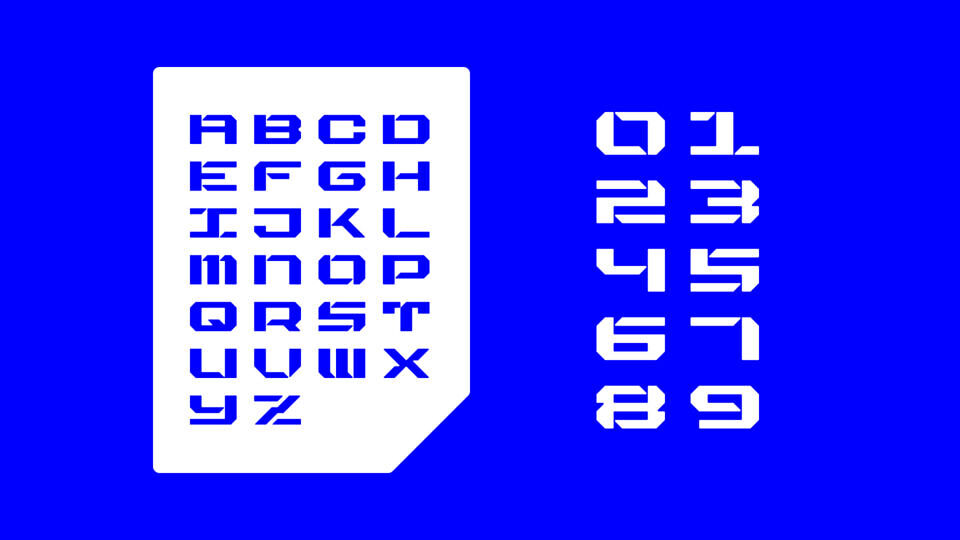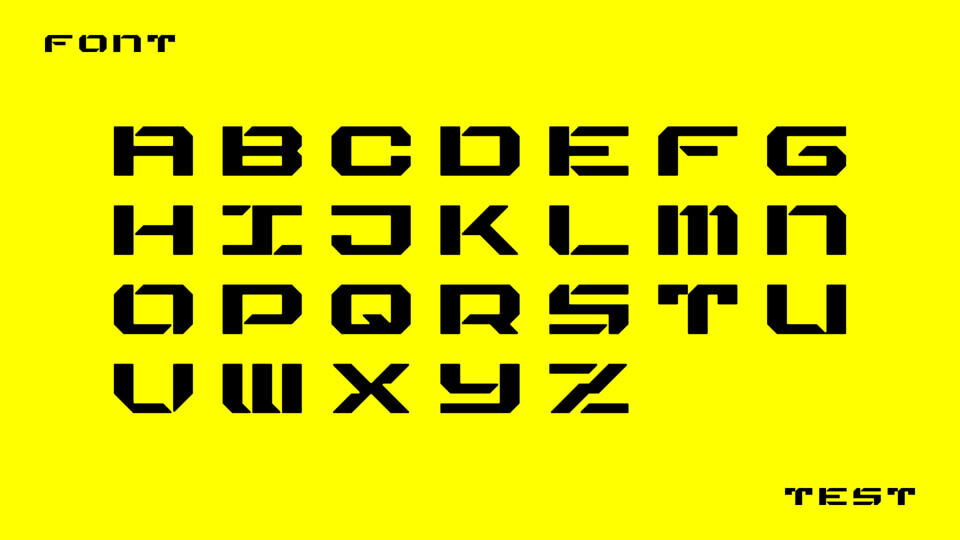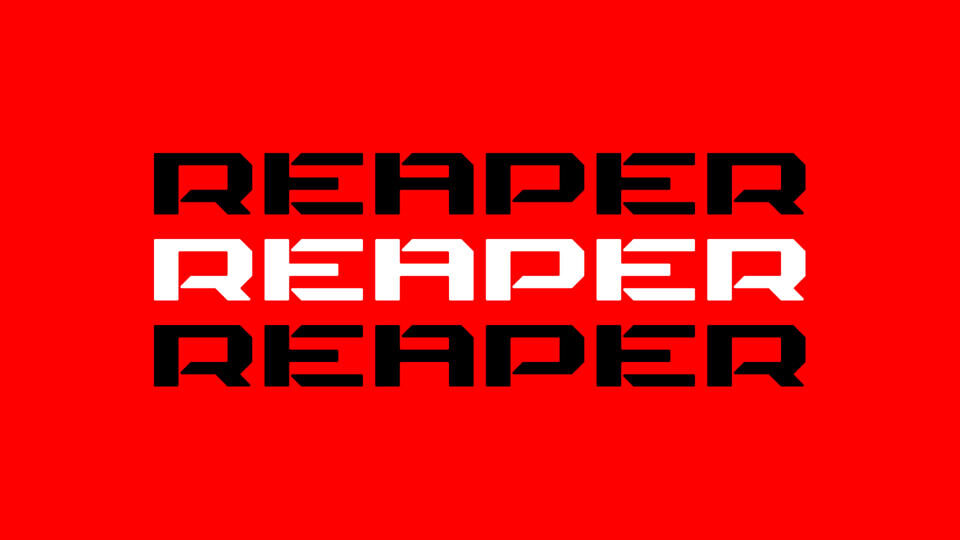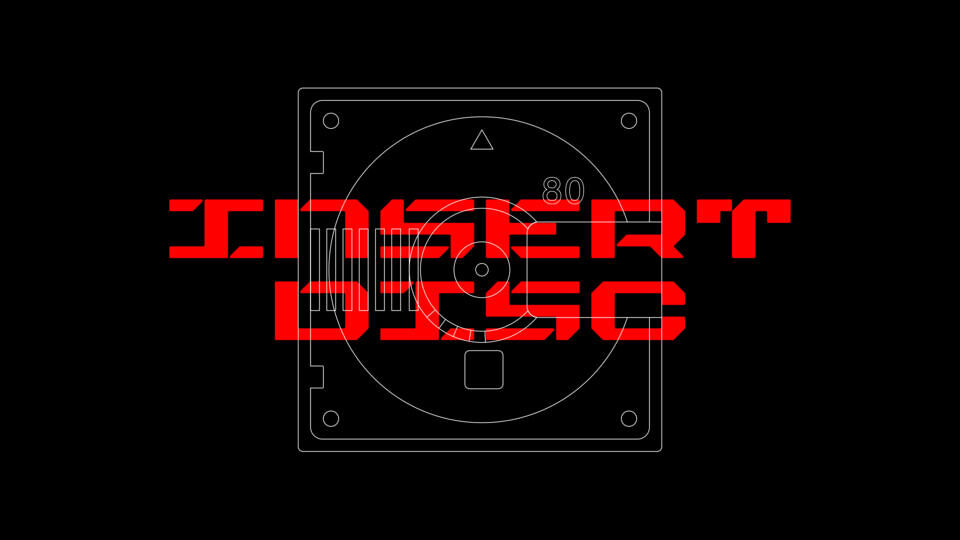
Monowire Font
Monowire is a cutting-edge free display font designed for high-impact, tech-driven visuals. Characterized by its monospaced, ultra-wide architecture and bold, geometric silhouettes, it seamlessly blends cyberpunk aesthetics with industrial precision.
Its striking stencil-like cutouts and sharp, angular terminals create a robotic, “glitch-in-the-shell” vibe. Perfect for sci-fi branding, gaming UI, and aggressive headlines, this font offers maximum readability in digital environments. Download Monowire to give your posters, logos, and futuristic projects a distinct, high-performance edge.
Designed by: Matt Cole Wilson